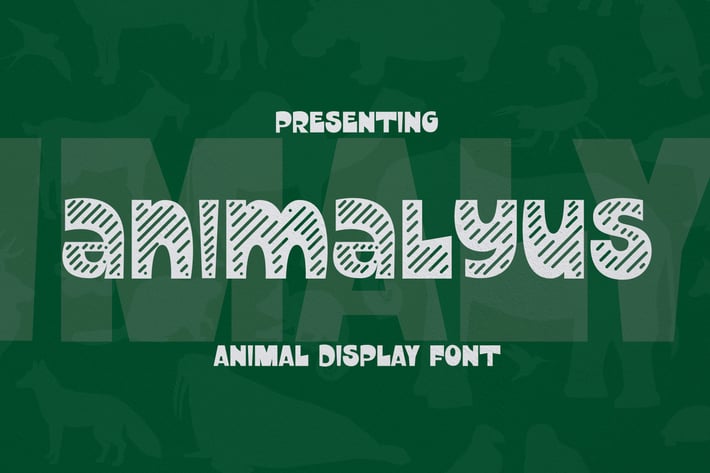
Animalyus Font
This font is suitable in many ways for your latest projects. Perfect for logos & branding, advertisements, product designs, stationery, labels, product packaging, special events and much more.